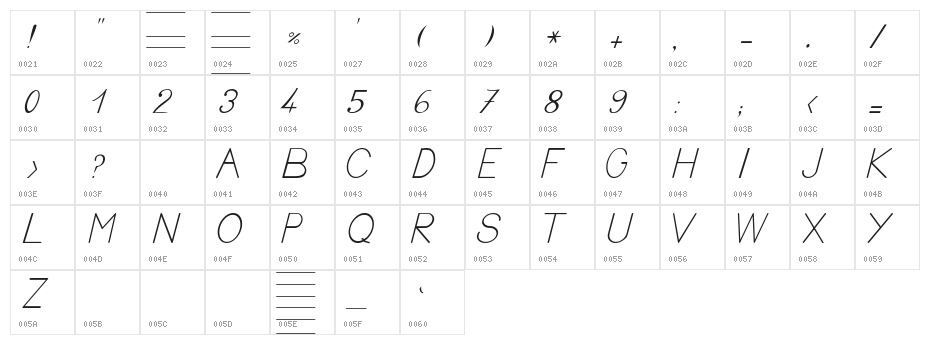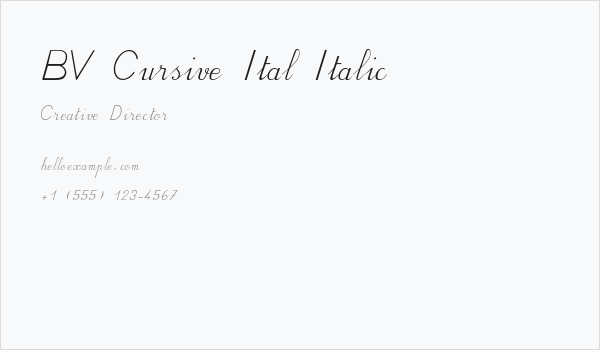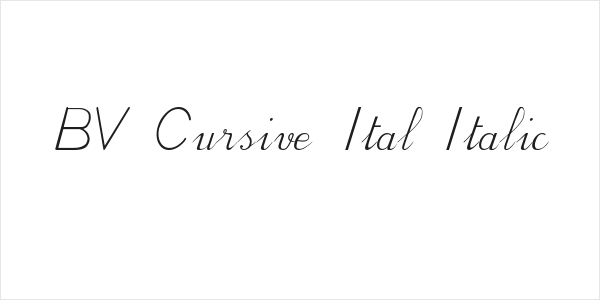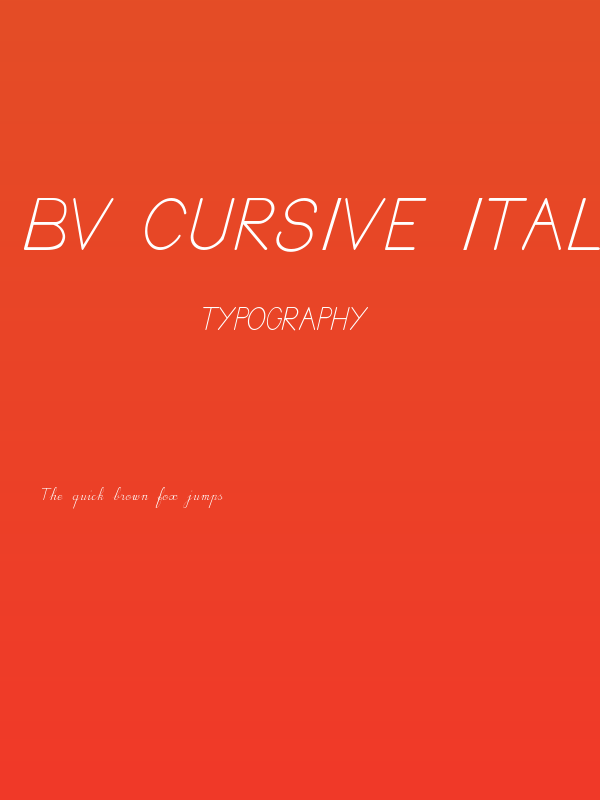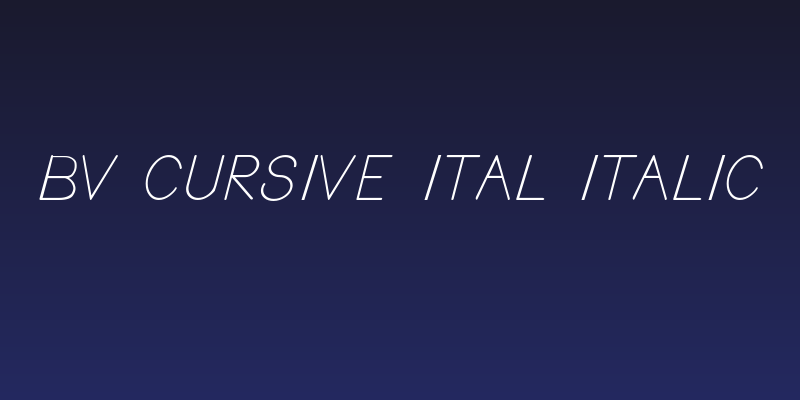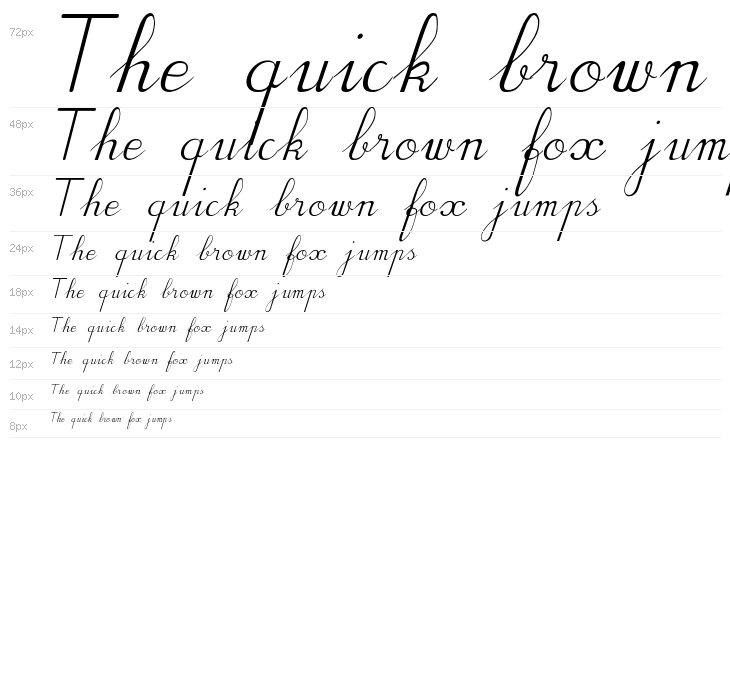
BV Cursive Ital Italic Font
BV Cursive Ital Italic Description
This elegant cursive font features a flowing, italicized style that exudes sophistication and grace. The uppercase and lowercase letters are seamlessly connected, creating a smooth and continuous script. The characters are slightly slanted, enhancing the cursive effect and adding a dynamic feel to the text. The numerals and special characters maintain the same fluidity, ensuring consistency throughout. This font is perfect for projects that require a touch of elegance and refinement, such as invitations, greeting cards, and branding materials. The overall design is both classic and modern, making it versatile for various applications.
| Overall Style | Elegant, Classic |
| Use Case | Invitations, Greeting cards, Branding |
| Proposed Projects | Ideal for wedding invitations, elegant branding, and stylish greeting cards. |